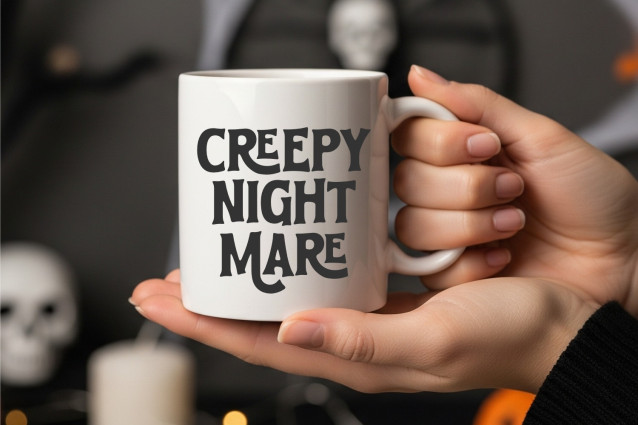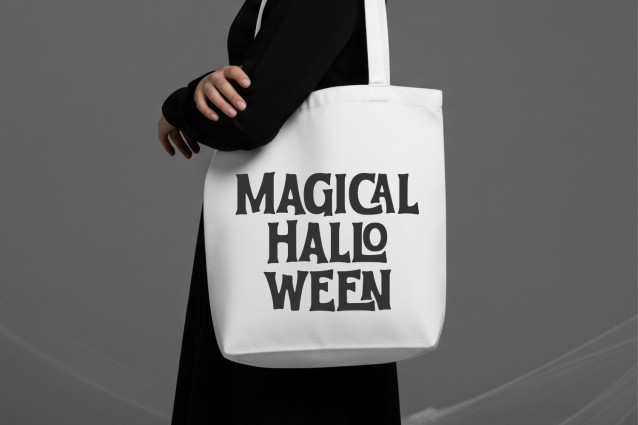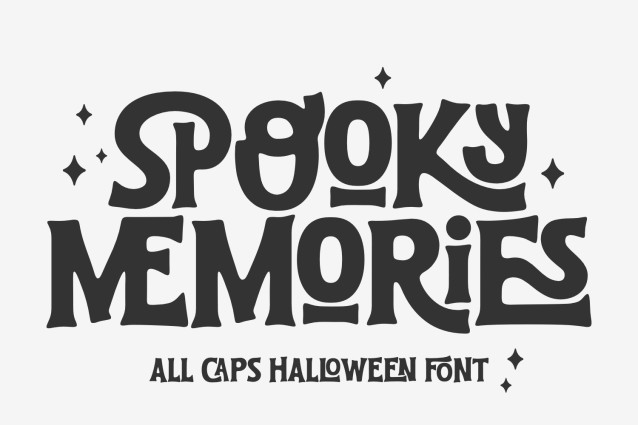
Spooky Memories – Retro Halloween Display Font
Bring a playful, spellbinding touch to your spooky season creations with Spooky Memories, a fun, groovy, and delightfully eerie All-Caps display font!
Combining 70s retro curves with a whimsical Halloween aesthetic, Spooky Memories is crafted to give your designs an instant custom-lettering look. Packed with unique alternate characters, swooping swashes, and clever nested letter combinations, this font makes creating eye-catching Halloween merch as easy as typing!
Whether you’re designing trick-or-treat apparel, cozy Halloween mugs, trendy tote bags, or spooky party decor, Spooky Memories captures the perfect blend of nostalgic fun and modern spooky vibes.